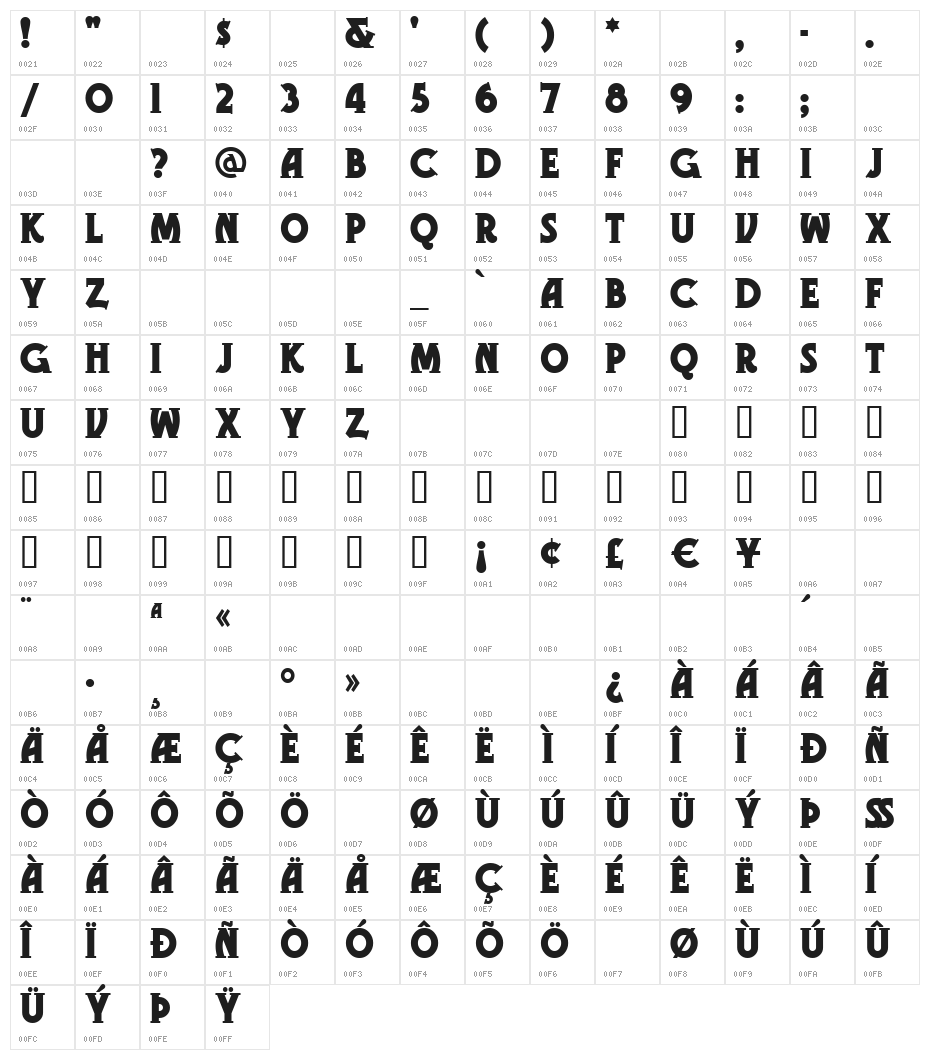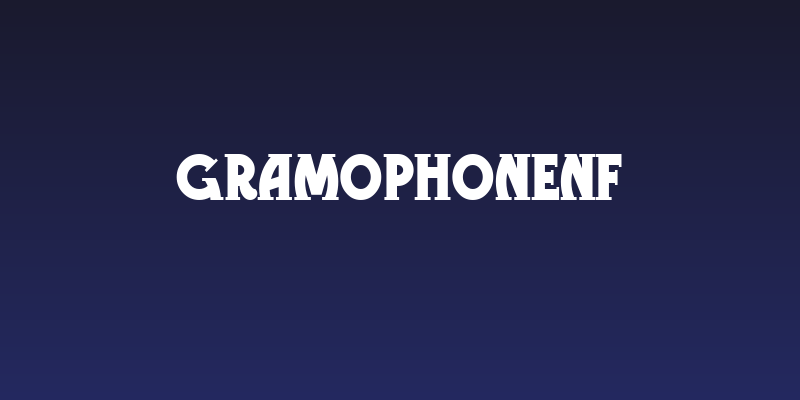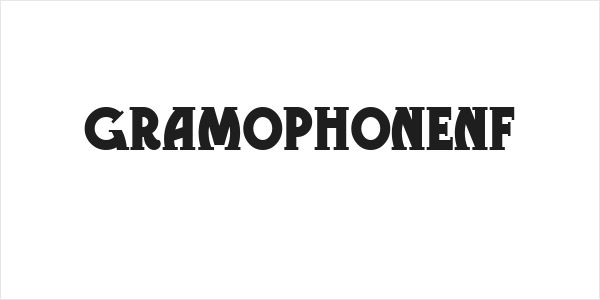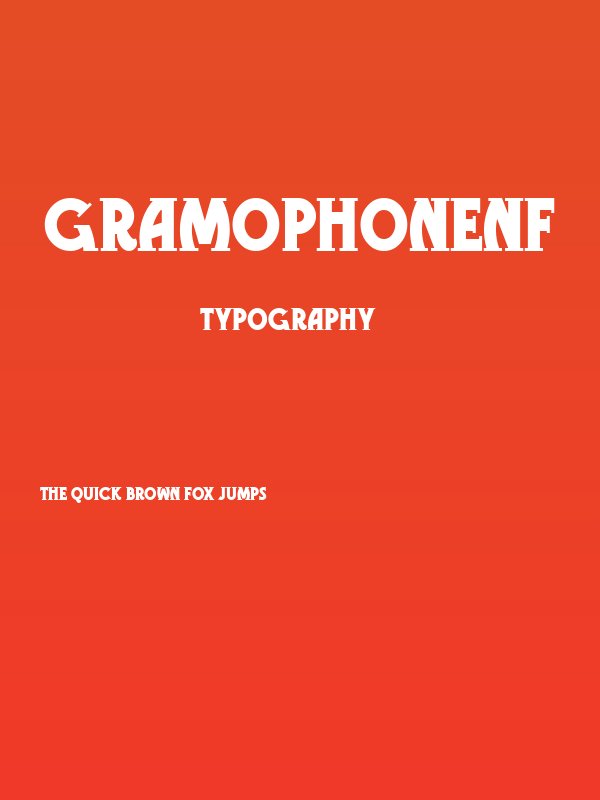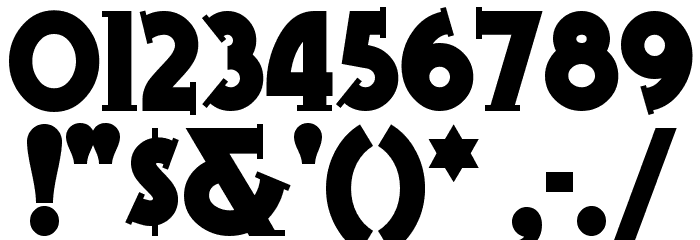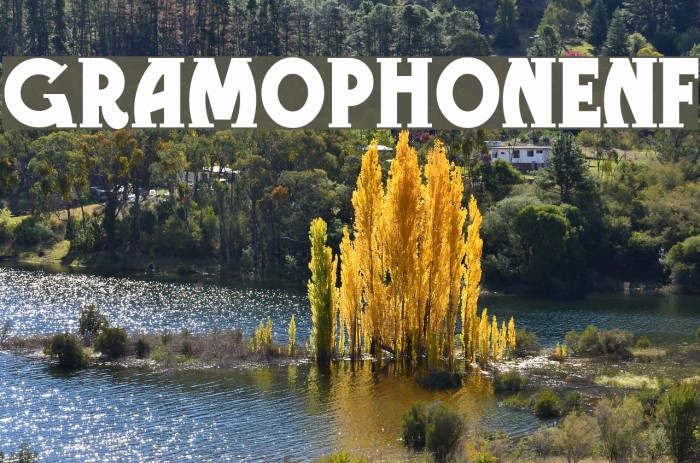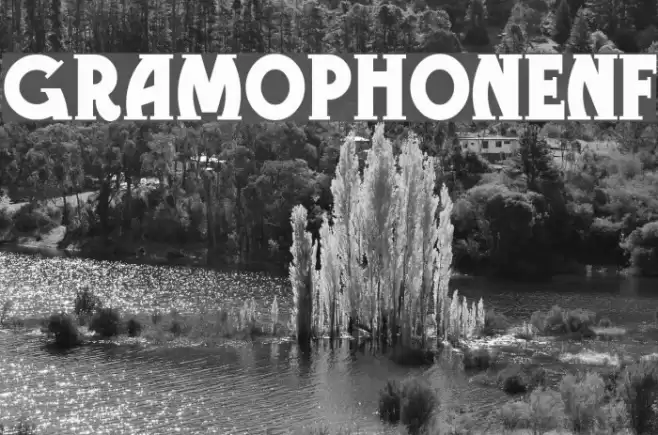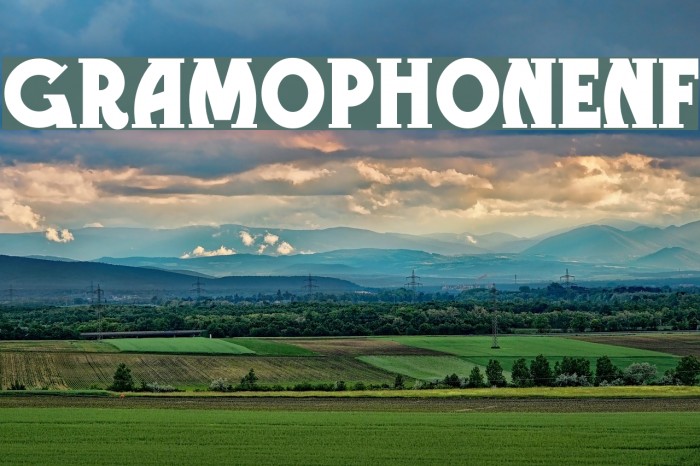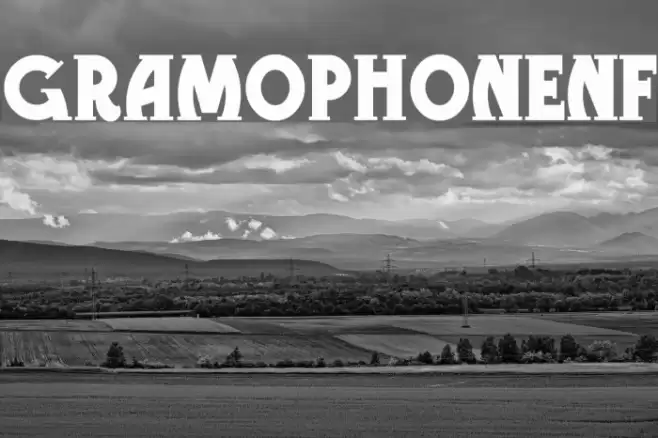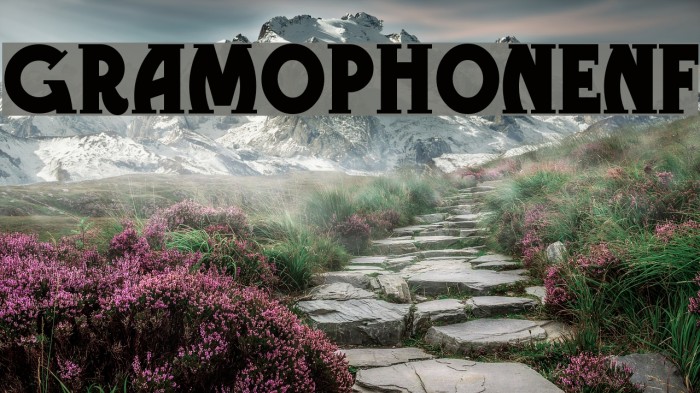
GramophoneNF Font
GramophoneNF Description
This font features a bold and dramatic style with a strong presence. The characters are designed with thick strokes and sharp angles, giving them a distinct and impactful appearance. The uppercase letters are particularly striking, with unique serifs that add a touch of elegance and vintage flair. The numbers and special characters maintain the same boldness, ensuring consistency throughout. This font's design is reminiscent of early 20th-century typography, making it ideal for projects that require a classic yet bold statement.
| Overall Style | Vintage |
| Proposed Projects | Ideal for vintage posters, retro branding, album covers, and theatrical event promotions. |